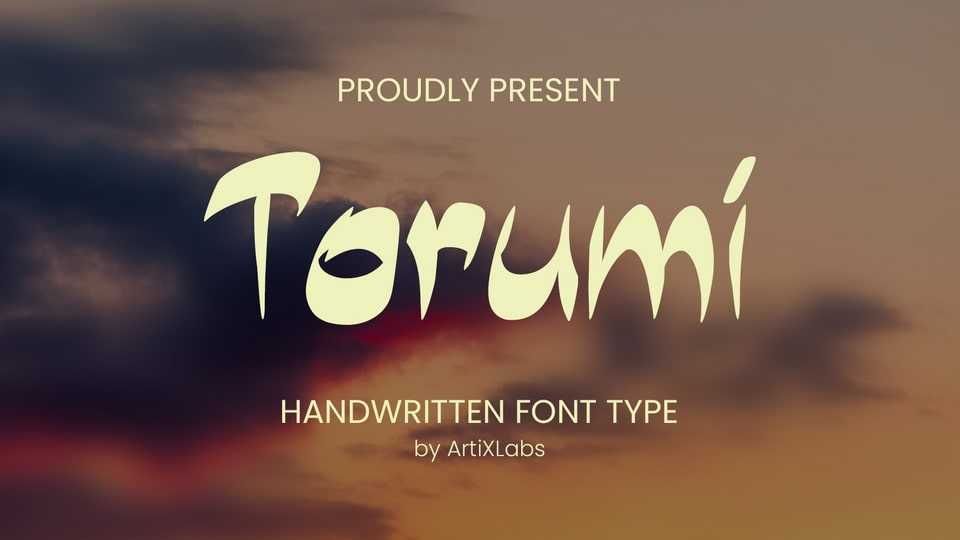
Download Torumi font, a bold handwritten display typeface inspired by Japanese brush calligraphy. Its sharp curves and flowing strokes create a dynamic balance.
Designer: ArtiXLabs